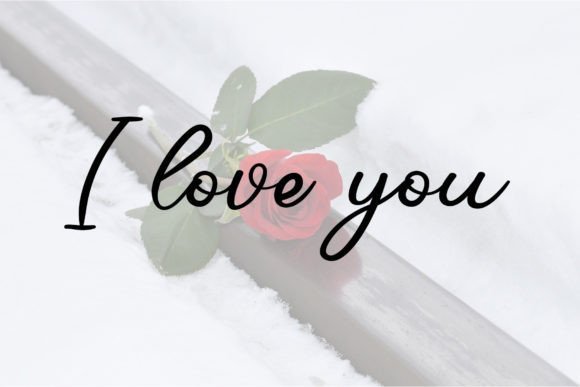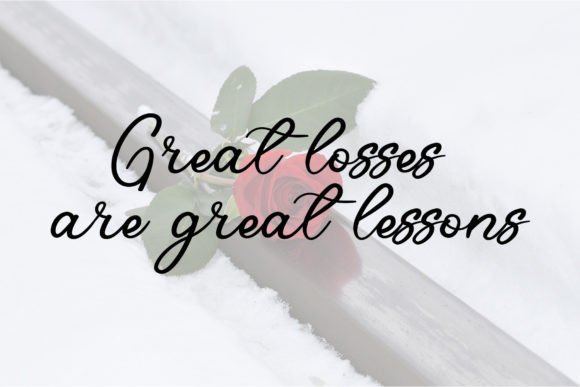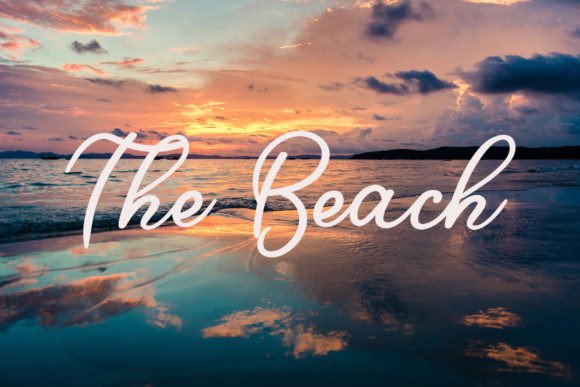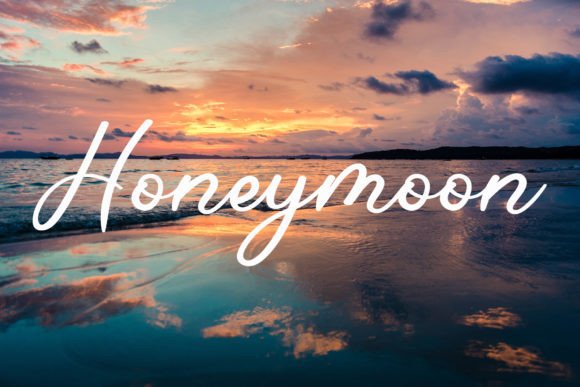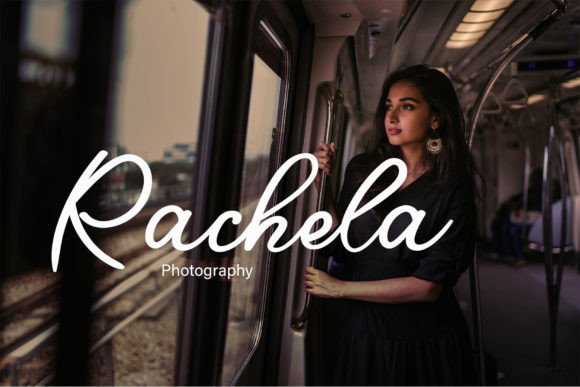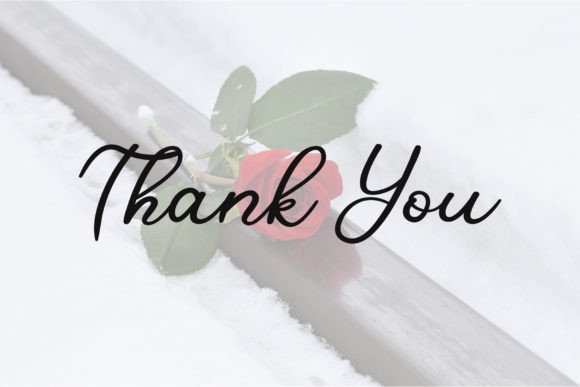
Introducing Broken Font: A Sweet and Friendly Handwritten Delight
Are you tired of using the same old fonts in your designs? Look no further! Broken font is here to add a touch of sweetness and friendliness to your projects. This beautiful handwritten font is perfect for creating wedding invitations, cards, and other designs that require a fun and playful touch.
What Makes Broken Font Special?
Broken font is a fresh and neat handwritten font that is sure to capture the attention of your audience. Its unique and charming style makes it ideal for designers and crafters who want to add a personal touch to their work. Whether you’re creating a wedding invitation, a greeting card, or a social media post, Broken font is the perfect choice.
Characteristics of Broken Font
- Sweet and Friendly: Broken font has a warm and inviting tone that makes it perfect for designs that require a personal touch.
- Handwritten Style: The font’s handwritten style gives it a unique and charming feel that sets it apart from other fonts.
- Fresh and Neat: Broken font is clean and easy to read, making it perfect for body text and headings.
- Versatile: This font can be used for a variety of design projects, from wedding invitations to social media posts.
Uses of Broken Font
Broken font is a versatile font that can be used for a variety of design projects, including:
- Wedding Invitations: Add a touch of romance and elegance to your wedding invitations with Broken font.
- Greeting Cards: Create beautiful and personalized greeting cards for special occasions like birthdays, anniversaries, and holidays.
- Social Media Posts: Use Broken font to add a playful and fun touch to your social media posts.
- Logos and Branding: Create a unique and memorable logo for your brand with Broken font.
Tips for Using Broken Font
Here are some tips for using Broken font in your designs:
- Pair it with Other Fonts: Broken font pairs well with other fonts, so feel free to experiment with different combinations.
- Use it for Headings and Body Text: Broken font is clean and easy to read, making it perfect for both headings and body text.
- Add a Personal Touch: Use Broken font to add a personal touch to your designs, making them more relatable and engaging.
Broken font is a sweet and friendly handwritten font that is perfect for designers and crafters who want to add a personal touch to their work. Its unique and charming style makes it ideal for a variety of design projects, from wedding invitations to social media posts. With its versatility and ease of use, Broken font is sure to become a favorite in your font collection.